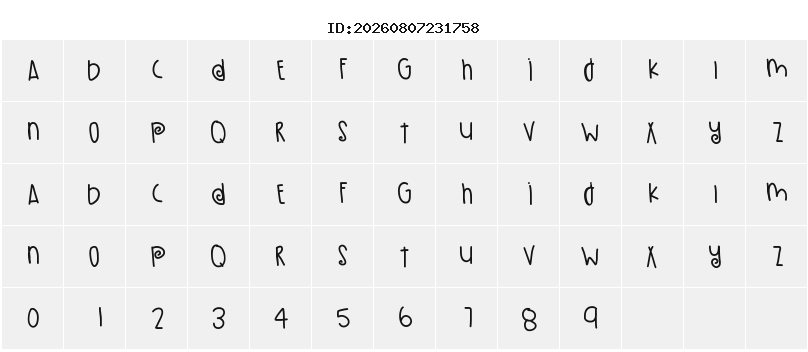
• Font Name: PumpkinSeeds
• Full Font Name: PumpkinSeeds
About PumpkinSeeds.ttf
PumpkinSeeds.ttf is a modern, elegant sans-serif font designed for ultimate readability and visual harmony. Perfect for branding, headlines, web design, and print materials.